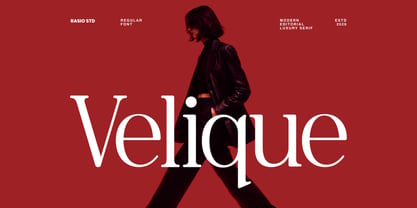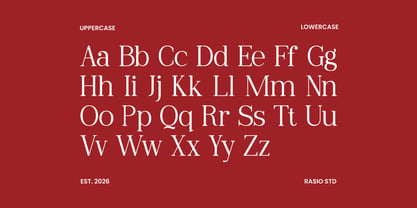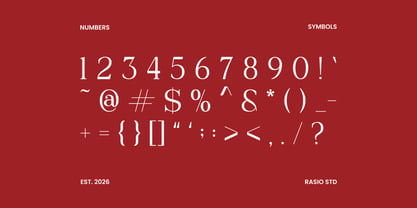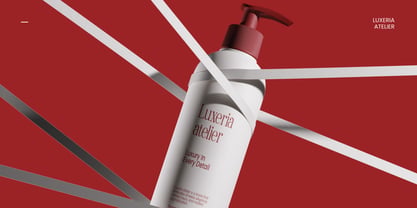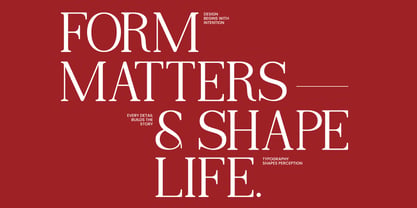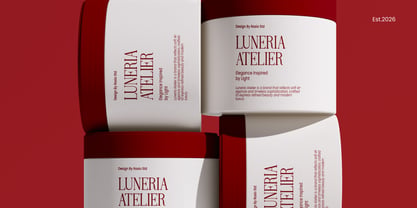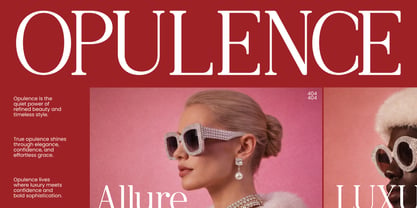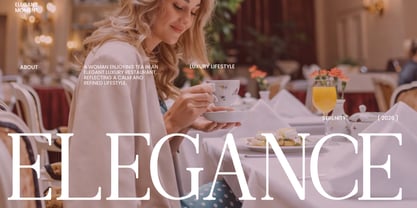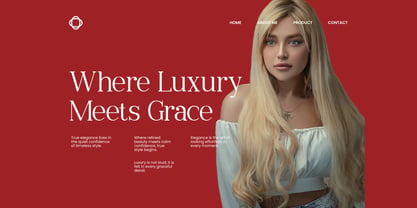
Velique
Velique showcases a modern editorial serif with refined proportions, high-contrast strokes, and elegant letterforms. It features clean serif structures combined with subtle contemporary details, creating a sophisticated and fashion-forward aesthetic. Fully editable and compatible across major design software, making it ideal for professional branding and editorial layouts. This font is highly relevant for luxury branding, fashion editorials, and premium visual identities that require a refined and sophisticated tone. It works perfectly for magazine layouts, logo design, product packaging, and high-end marketing materials where elegance and clarity are essential.